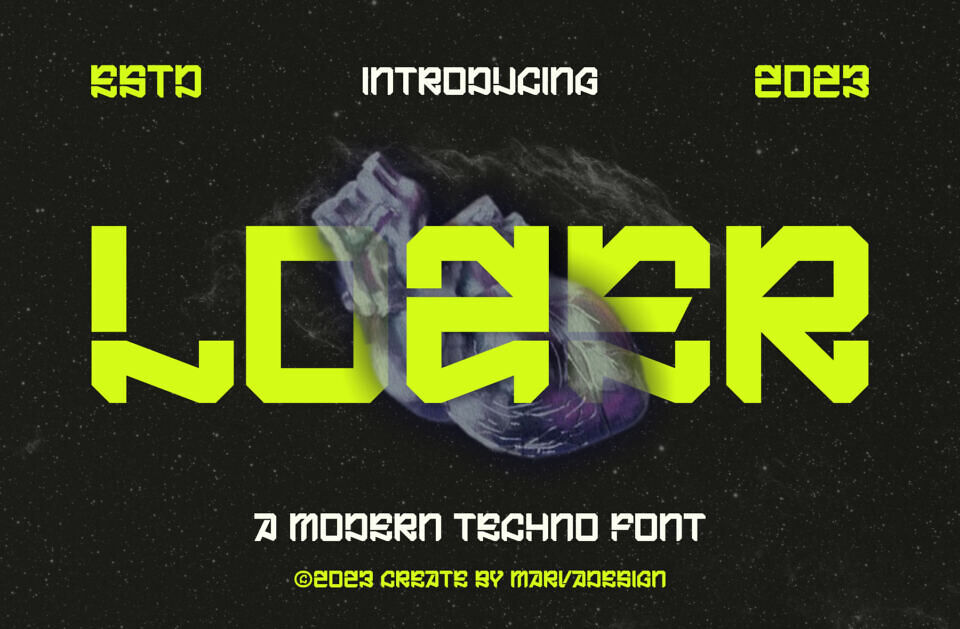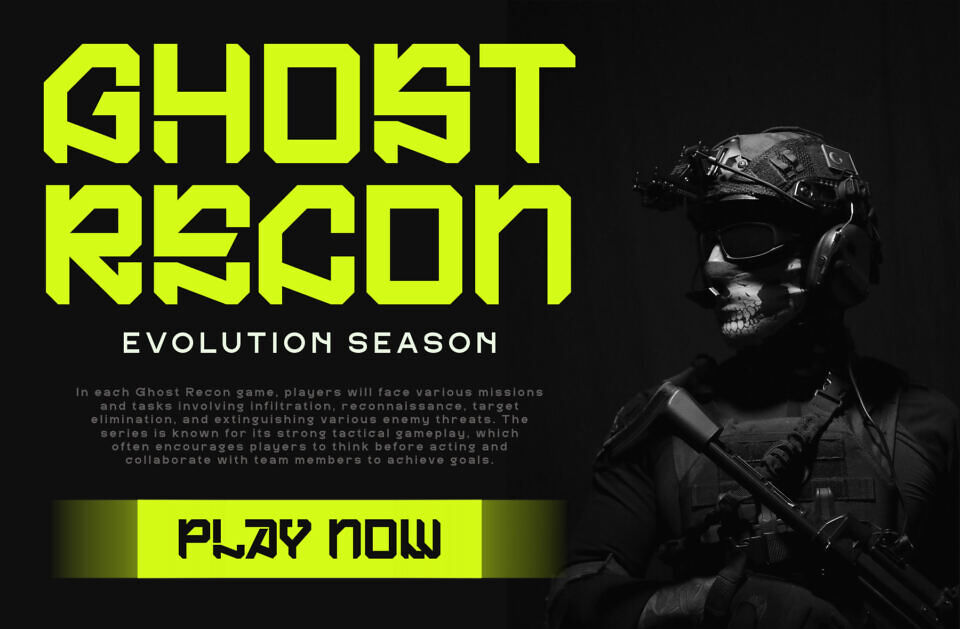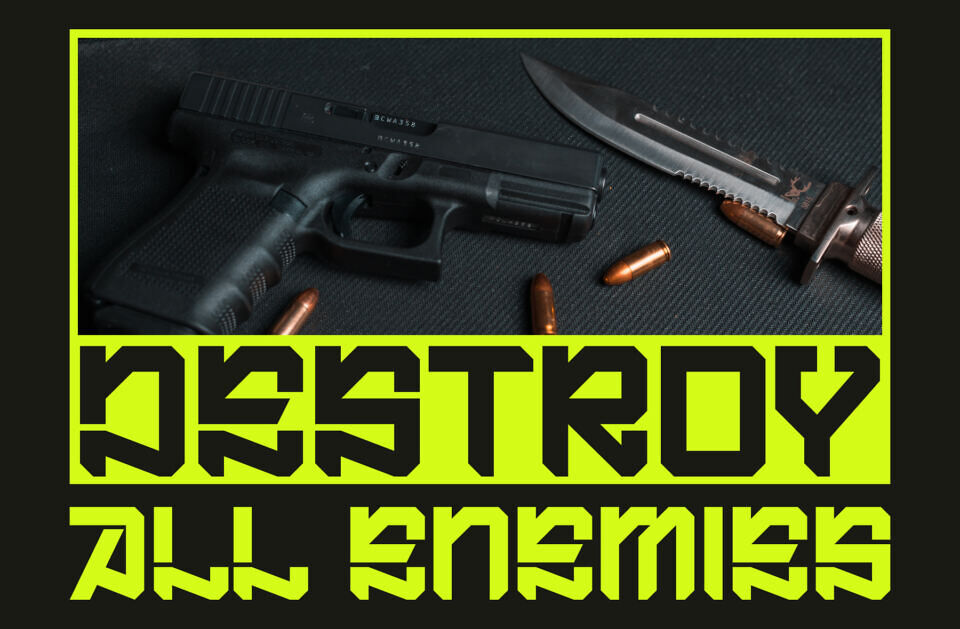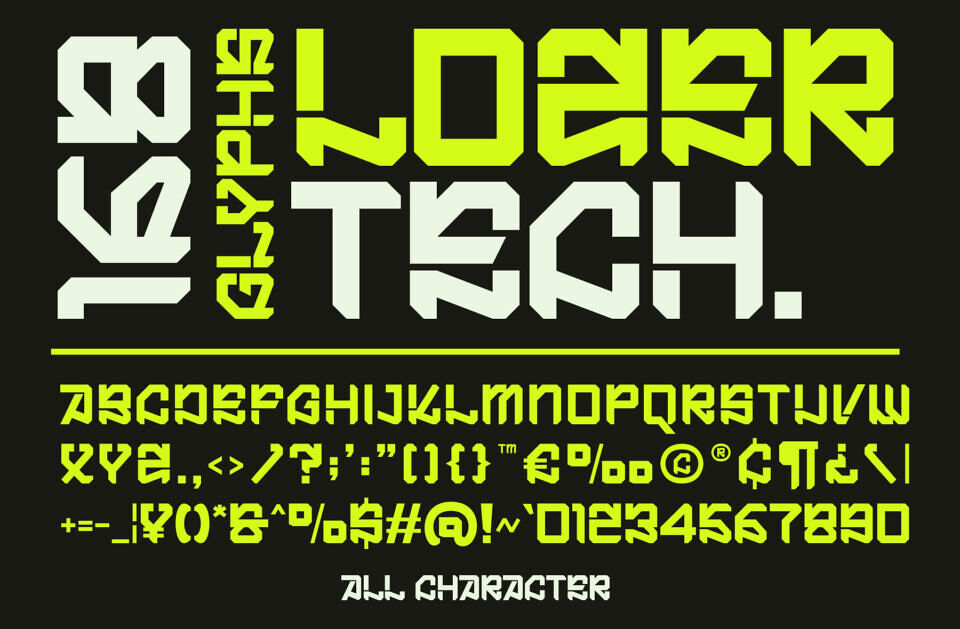
Lozer is a cool, sleek font style perfect for modern projects. Its techno-inspired design gives your text a futuristic vibe, making it stand out. With clean lines and a contemporary feel, Lozer brings a touch of sophistication to any design.